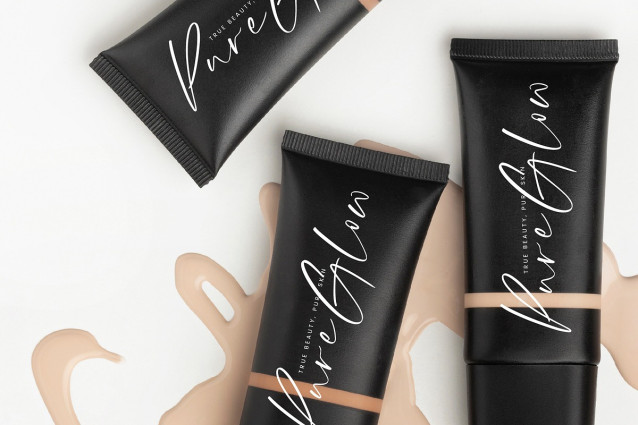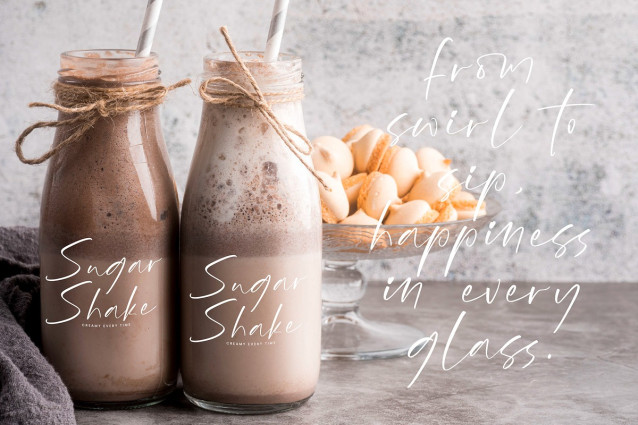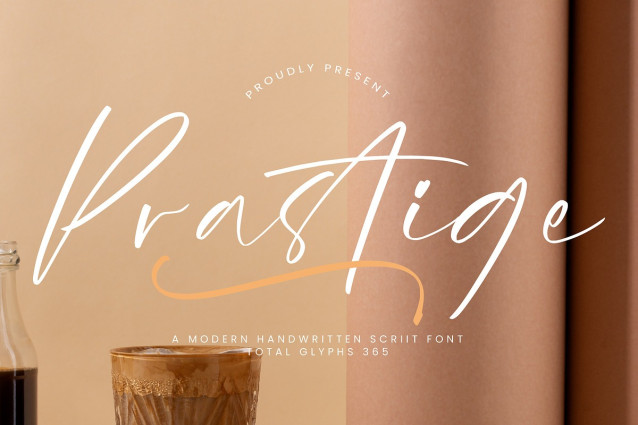
Prastige Handwritten Font
Prastige Handwritten Font – A Modern Handwritten Script Font, from Integritype Studio, perfect for any project like: logos, branding projects, homewares designs, product packaging, mugs, quotes, posters, shopping bags, t-shirts, covers books, business cards, invitation cards, greeting cards, labels, photography, watermarks, special events and all your other luxury projects that require a premium taste.